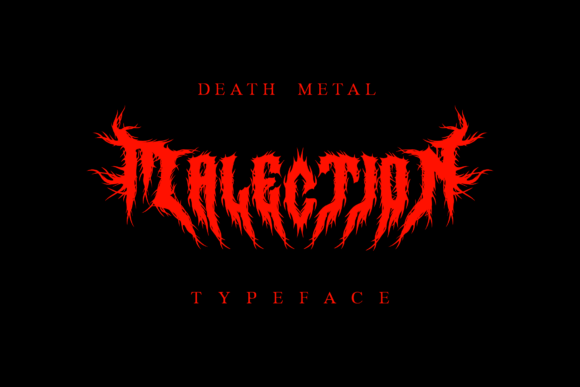
Malection: The Death Metal Font for Bold Statements
Fonts do more than convey words—they set the tone, evoke emotion, and shape perception. For those who want to unleash raw intensity in their designs, Malection is a powerful choice. Inspired by death metal aesthetics, this font combines razor-sharp edges with twisted forms to create a visual experience that screams aggression and energy. Whether you're a graphic designer, a musician, or a small business owner aiming to stand out, Malection offers a unique way to channel extreme creativity into your projects.
What Makes Malection Stand Out?
Malection isn’t just another bold font—it’s a full-on design statement. Its chaotic yet deliberate structure reflects the rebellious spirit of underground culture while maintaining enough control to be functional across various media. The sharp angles and jagged lines give it a menacing edge, making it ideal for anything from album covers to brand logos where impact is key.
This typeface includes three alternate character sets, giving users the freedom to switch between different aggressive styles depending on the mood or message they want to project. It also comes with a complete set of numbers and symbols, ensuring that all your typographic needs are met without compromising the font's signature brutality.
Why Different Audiences Care About Malection
For Beginners: If you're new to typography or graphic design, finding the right font can feel overwhelming. Malection simplifies the process by offering an instantly recognizable style. You don't need advanced skills to use it effectively—just drop it into your design software, and you’re already halfway to creating something eye-catching. For example, if you're designing a flyer for a local metal band gig, Malection can help you capture the event's energy quickly and confidently.
For Experienced Designers: Professionals appreciate fonts that offer flexibility without sacrificing identity. With Malection, you can experiment with layering different character sets or using it as a base for custom tweaks. Its versatility allows it to blend into complex compositions or take center stage when needed. Think of it as a tool that adds depth and texture to high-impact visuals like music posters, horror-themed websites, or edgy product packaging.
For Creators and Content Producers: Bloggers, YouTubers, and podcasters often seek ways to reinforce their brand through visuals. Malection can be used in titles, thumbnails, or headers to communicate a strong personality. Imagine using it in a video about underground death metal scenes or in the title card of a documentary exploring extreme subcultures—its presence alone tells a story.
For Educators and Students: Typography is a crucial part of design education. Malection serves as a compelling case study for students learning about contrast, rhythm, and emotional expression in type. Educators might use it in workshops to discuss how form influences function, especially in niche contexts like music and entertainment branding.
For Entrepreneurs and Small Business Owners: Standing out in a crowded market requires more than a good product—it demands a bold visual language. A startup in the gaming industry, for instance, could leverage Malection to craft a logo or promotional material that resonates with fans of dark, intense themes. It’s not just about looking cool; it’s about building a brand that speaks directly to its audience.
For Hobbyists and DIY Enthusiasts: If you love creating art, t-shirts, or fanzines in your free time, Malection gives you a professional-grade option to enhance your work. Its raw, unfiltered look fits perfectly in zines, vinyl records, or merchandise for personal bands. It’s the kind of font that lets your passion show through every detail.
How to Use Malection Effectively
Malection shines when used in short bursts—think headlines, banners, or labels rather than long blocks of text. Here are some practical applications based on user goals:
- Music Industry: Use Malection for album titles, song lyrics, or band logos to reflect the aggressive nature of death metal and similar genres.
- Marketing and Branding: Incorporate it into promotional materials for events, products, or campaigns targeting younger, edgier demographics.
- Web Design: Apply it to website headers or call-to-action buttons for sites focused on alternative culture, gaming, or horror content.
- Print Media: Print it on posters, flyers, or merchandise to add a visceral, in-your-face quality that stands out from the crowd.
When choosing how to implement Malection, consider the medium and context. For digital platforms, ensure legibility at smaller sizes. In print, let the font breathe and dominate the page. Pairing it with complementary elements like black-and-red color schemes or textured backgrounds can heighten its effect.
Prioritizing Your Needs with Malection
Different users will prioritize different aspects of Malection. Here’s a quick breakdown of what to focus on based on your role:
In a world where visual noise is everywhere, standing out takes more than just loud colors or flashy animations. It requires a font that embodies the message it carries. Malection does that—and more. It’s not just a font; it’s a voice for the underground, a canvas for chaos, and a catalyst for creativity.
So, if you're ready to bring your most extreme visions to life, whether in print, digital, or personal projects, consider letting Malection do the screaming for you. Just remember: use it wisely, and let the intensity speak clearly through your work.